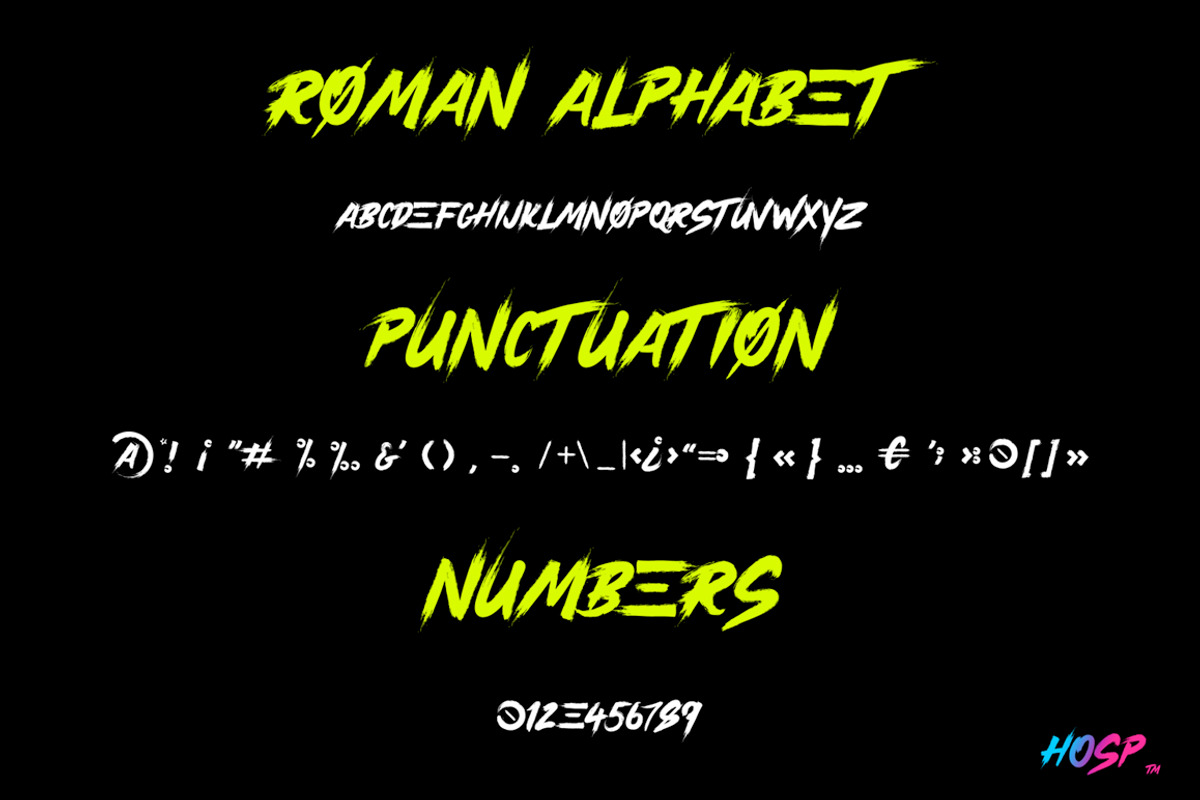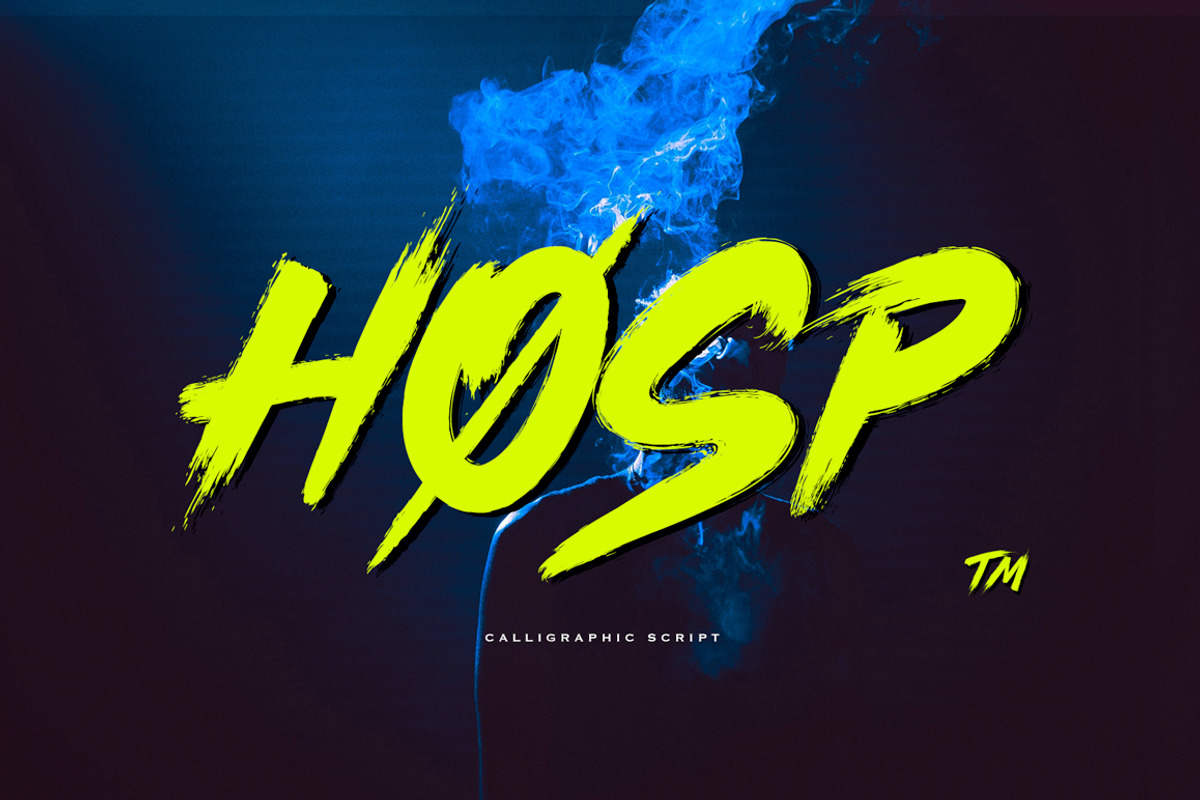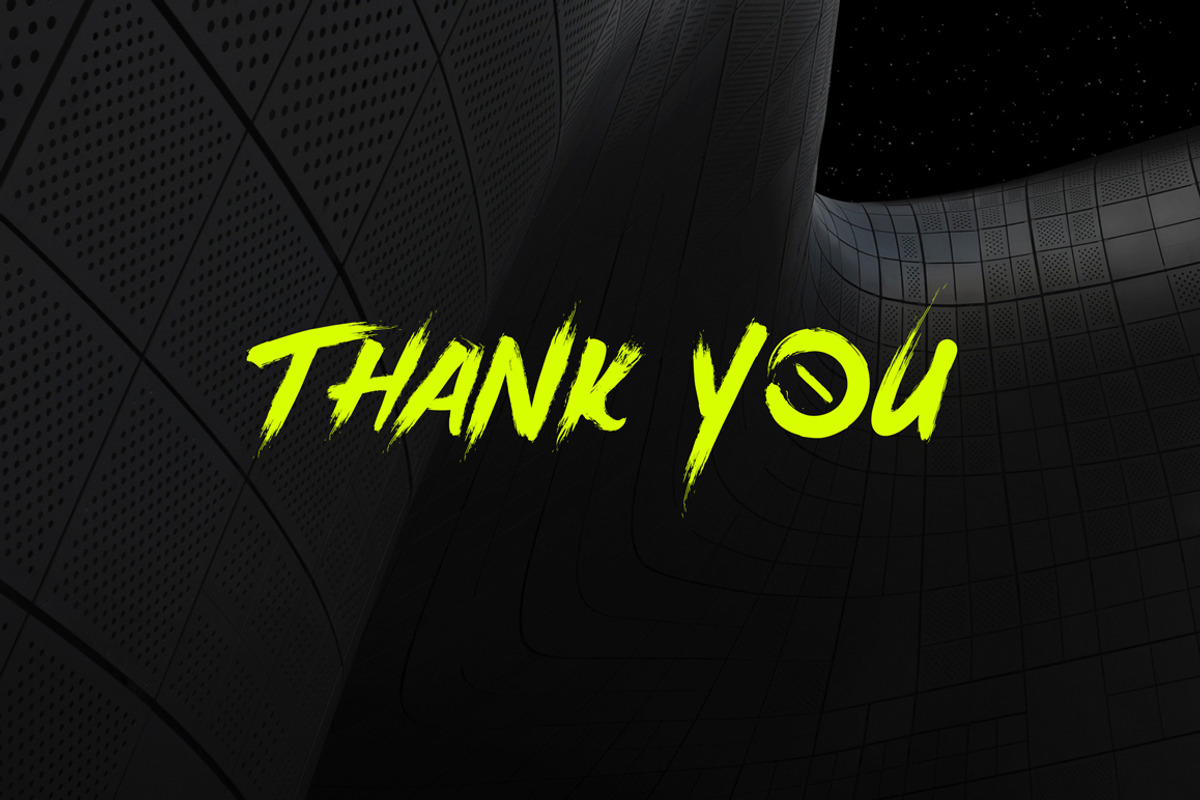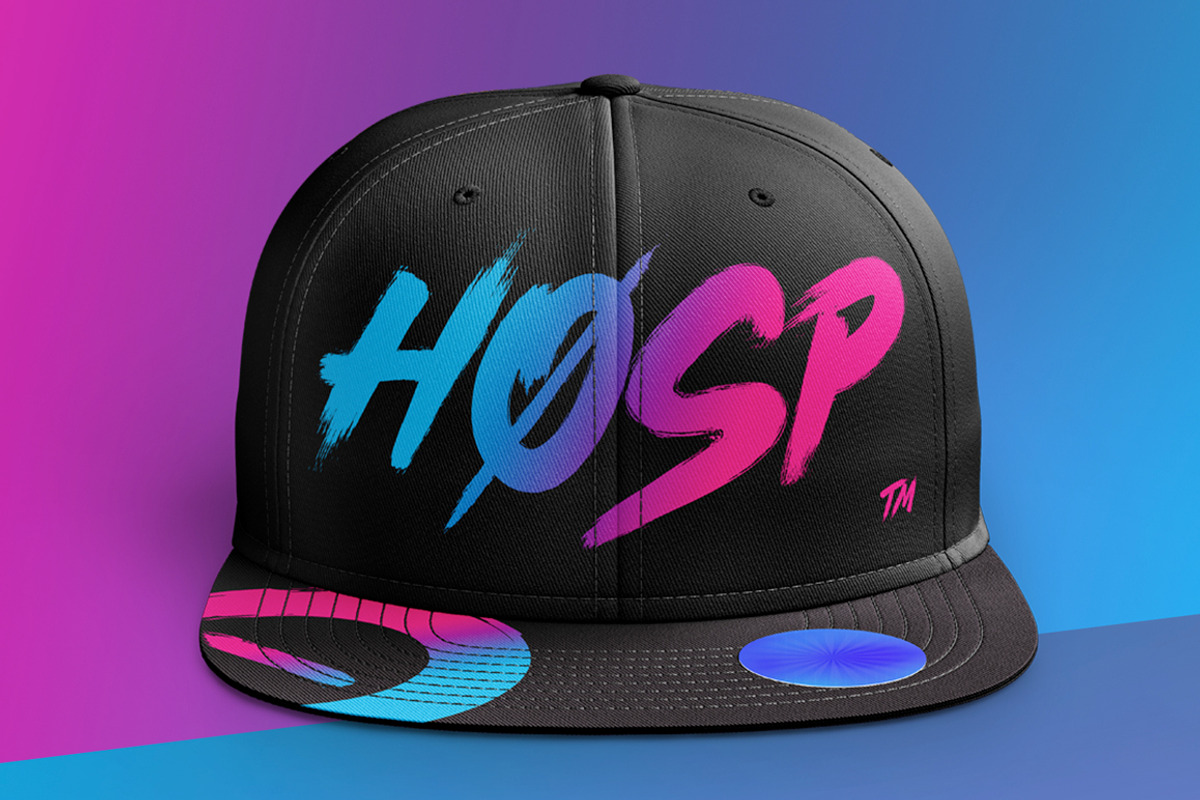
Hosp Brush Font
💢 Awesome Brush Script - HOSP! 💢
👉🏻 This handwritten font is best weapon for designers, filmmakers, photographers and any artist who want to bring some cool urban mood to the artwork!
The font is perfect for videos, cover design, and prints but we believe script is perfect for any project where you need to create urban, underground atmosphere!
Hosp Brush Font by n.A Studio fits naturally into Branding, posters, packaging, typography.